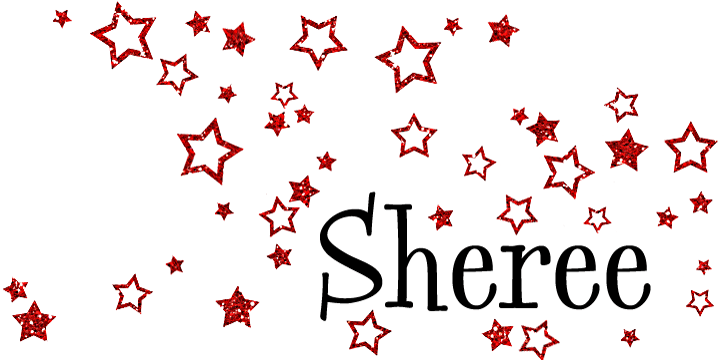
Sheree
Font Family by Typadelic
Buy NowInspired by mid-century greeting card hand-lettering, Sheree is a unique serif font with some really fun qualities. While some characters are distinctly calligraphic and conformist in nature, Sheree bounces all over the baseline, displaying an unconventional attitude all her own.